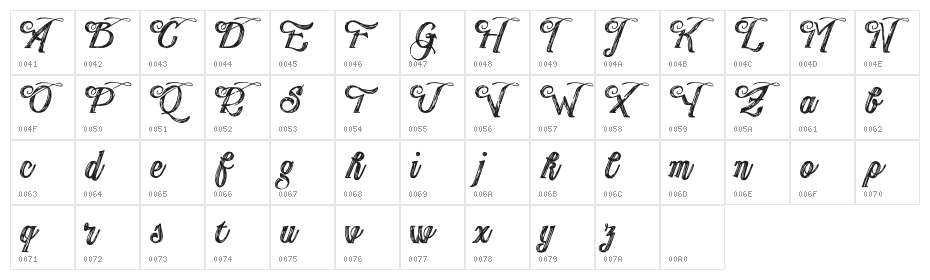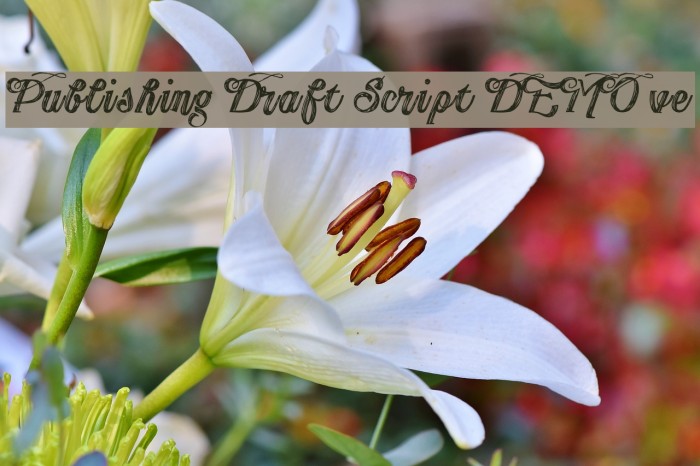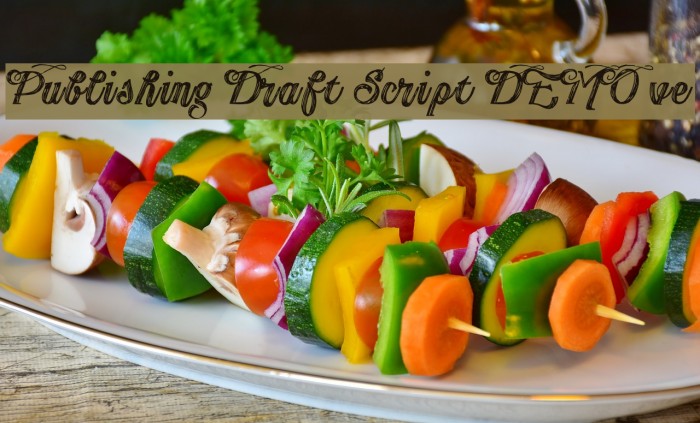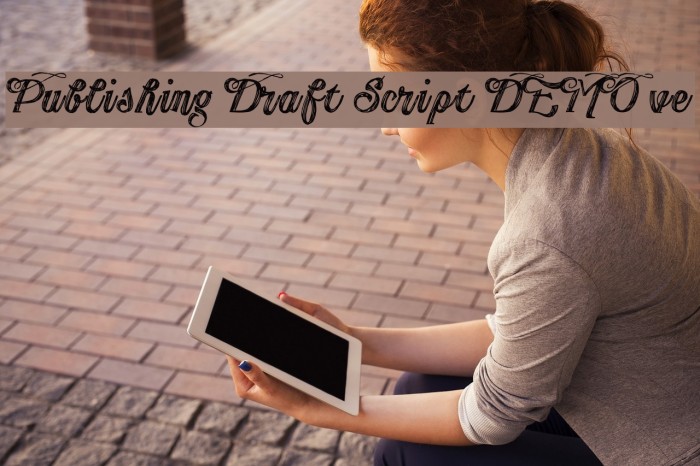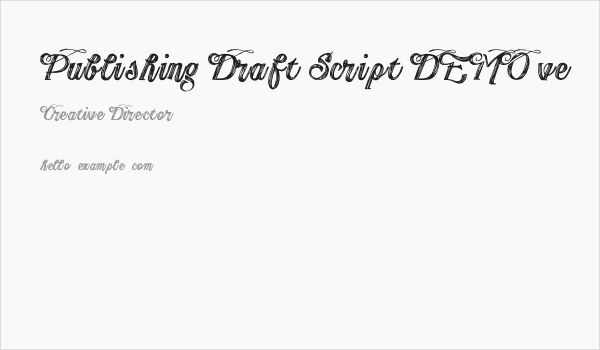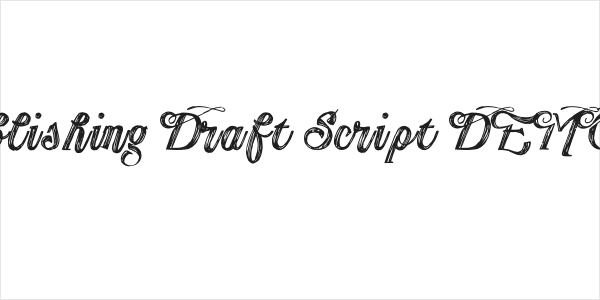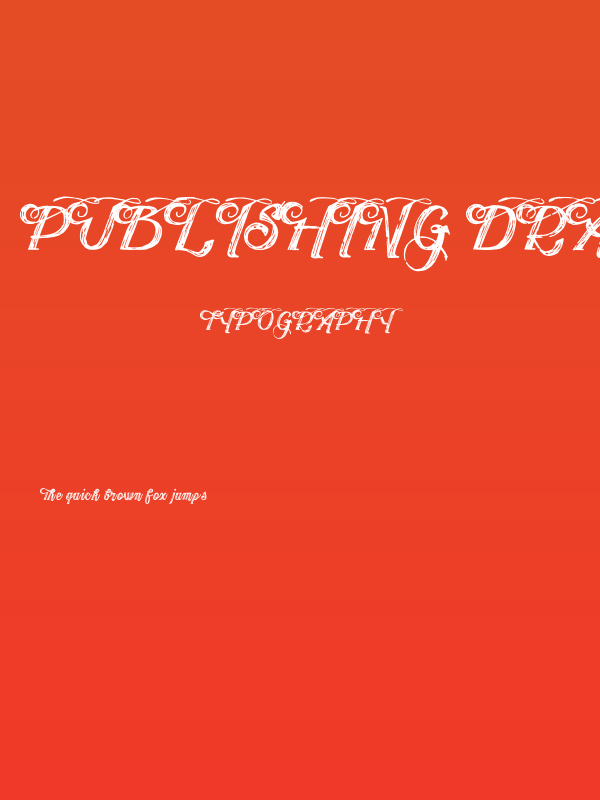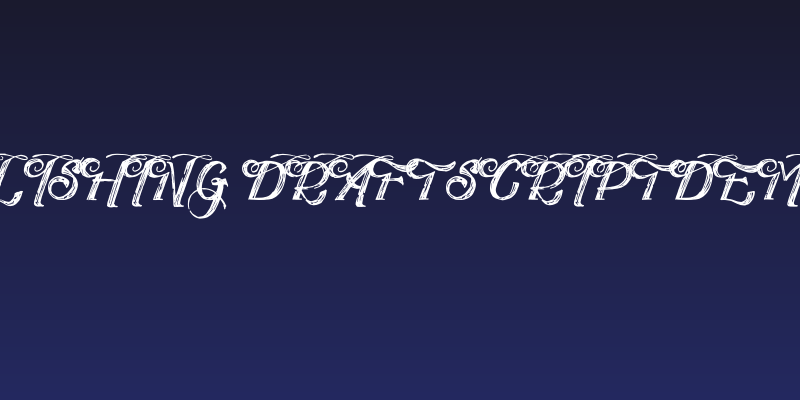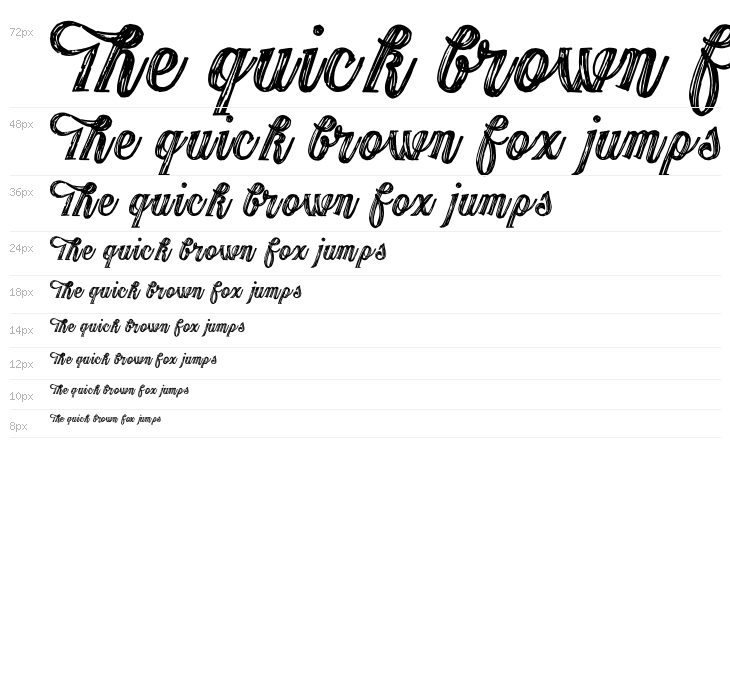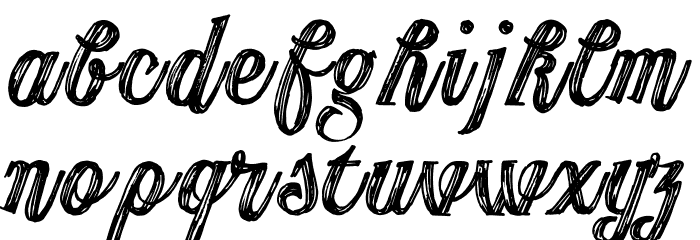
Publishing Draft Script DEMO ve Font
Publishing Draft Script DEMO ve Description
This font features an elaborate and decorative script style, characterized by its intricate swirls and flourishes that extend from the main strokes of each letter. The uppercase letters are particularly ornate, with exaggerated loops and curves that give a sense of elegance and sophistication. The lowercase letters maintain a consistent style, with bold strokes and a flowing, cursive appearance. The overall design is reminiscent of traditional calligraphy, yet it incorporates a modern twist with its bold, thick lines. This font is highly decorative and is best suited for projects that require a touch of elegance and artistry.
| Proposed Projects | Ideal for wedding invitations, luxury branding, elegant packaging, and artistic posters. |